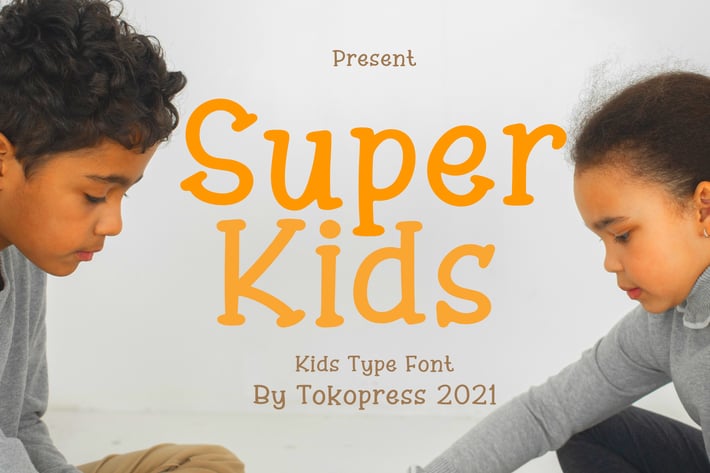
Superkids - Handwriting Travel font
Super Kids is a playful handwriting-style font crafted with a bouncy baseline and rounded proportions, delivering a lighthearted tone ideal for kid-focused designs. The soft terminals and consistent stroke weight give it a warm, accessible feel—perfect for early learning visuals, educational content, or any branding aimed at young audiences. With a mix of expressive forms and high legibility, it strikes a balance between fun and function.
Designed to resonate with children and parents alike, Super Kids is your go-to display for educational branding, book covers, posters, and product packaging in the children’s space. Whether you're launching a preschool workbook, designing a toy label, or creating a playful mobile app UI, Super Kids adds cheerful energy that instantly attracts attention while keeping your message clear and kid-friendly.
- Rounded, soft edges for a comforting and playful aesthetic
- Bouncy baseline for dynamic, youthful energy
- Clear readability for young learners and educational content
- Ideal for use in children’s books, branding, product packaging, school event posters
- Balanced personality for both digital and print formats
Bring your kid-focused projects to life with a typeface that speaks directly to young hearts and creative minds. Super Kids helps you tell joyful stories, build cheerful brands, and create content that pops with personality. Download Super Kids now and give your next design a bright, playful voice!